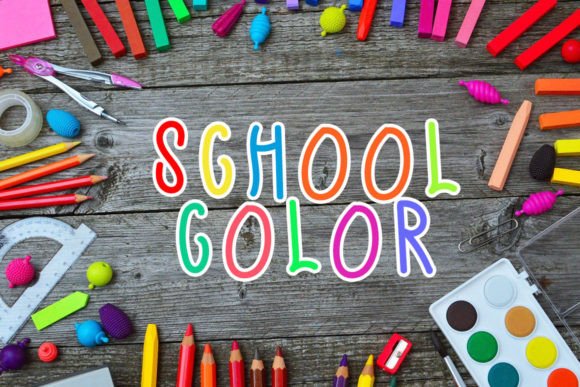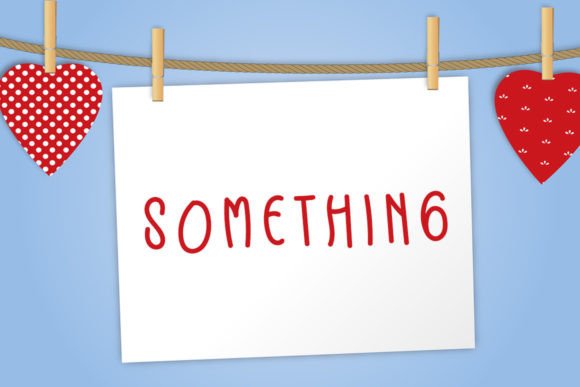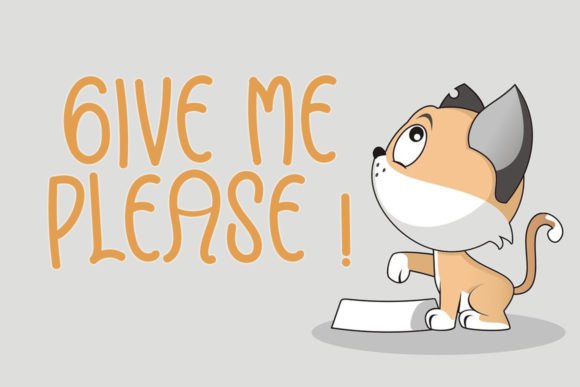
Gurita Shorts Font: Elevate Your Designs with a Touch of Elegance and Joy
In the world of design, fonts play a pivotal role in conveying messages, evoking emotions, and creating lasting impressions. Among the myriad of fonts available, Gurita Shorts stands out as a beacon of freshness, cleanliness, and elegance. This beautiful display font is not just a typographical choice; it’s an experience that can transform your projects, whether formal or informal, adding a joyful touch that captivates audiences. In this article, we’ll dive into the essence of Gurita Shorts Font, exploring its features, benefits, and the creative possibilities it unlocks for designers and crafters alike.
The Essence of Gurita Shorts Font
Gurita Shorts is meticulously crafted to bring a sweet and delightful feel to your designs. Its fresh, clean, and elegant appearance makes it versatile enough to be used across a wide spectrum of projects. From wedding invitations and event posters to brand logos and digital content, Gurita Shorts can add a unique charm that sets your work apart. The font’s design is centered around simplicity and readability, ensuring that your message is conveyed with clarity and style.
Key Features of Gurita Shorts Font
- Fresh and Clean Design: Gurita Shorts boasts a modern aesthetic that feels both contemporary and timeless. Its clean lines and subtle curves make it easy to read and visually appealing.
- Elegant and Versatile: Whether you’re working on a formal project like a corporate event invitation or something more casual like a social media post, Gurita Shorts adapts seamlessly, adding an elegant touch to any design.
- Joyful and Engaging: The font’s sweet and delightful appearance can inject a dose of joy and positivity into your designs, making them more engaging and memorable.
Fonts are more than just a stylistic choice; they’re a crucial element that can make or break your design. Here are some benefits that Gurita Shorts Font brings to the table:
- Simplifies Design Process: With Gurita Shorts, you have a versatile font that can be used across various projects, simplifying your design process and ensuring consistency in your brand’s visual identity.
- Enhances Brand Aesthetic: By incorporating Gurita Shorts into your designs, you can significantly enhance your brand’s aesthetic, making it look more beautiful, elegant, and appealing to your audience.
- Wide Range of Applications: From digital content and social media posts to print materials like brochures and posters, Gurita Shorts can elevate a wide range of design projects.
Creative Possibilities with Gurita Shorts
The true power of Gurita Shorts Font lies in its ability to unlock new creative possibilities for designers and crafters. Here are a few ideas to get you started:
- Wedding and Event Invitations: Add a touch of elegance and joy to your wedding or event invitations, setting the tone for a memorable occasion.
- Branding and Logos: Use Gurita Shorts to create stunning brand logos or to enhance your brand’s visual identity across various platforms.
- Digital Content: Make your social media posts, blog headers, and website titles stand out with a font that is both fresh and engaging.
Gurita Shorts Font is more than just a typographical choice; it’s a design experience that can elevate your projects, adding a touch of elegance, freshness, and joy. Whether you’re a designer looking to enhance your brand’s aesthetic or a crafter seeking to add a personal touch to your creations, Gurita Shorts offers a versatile and beautiful solution. With its wide range of applications and benefits, it’s an excellent addition to any design toolkit. So, why settle for ordinary when you can make your designs extraordinary with Gurita Shorts Font?